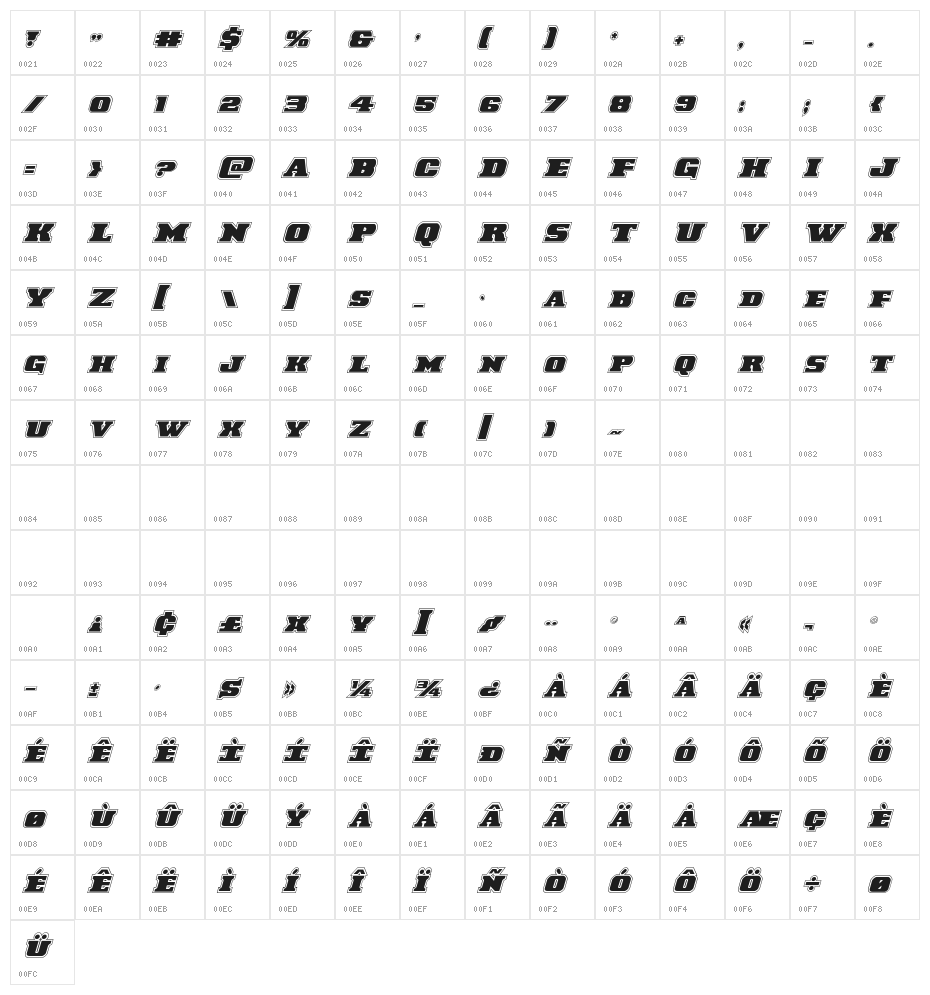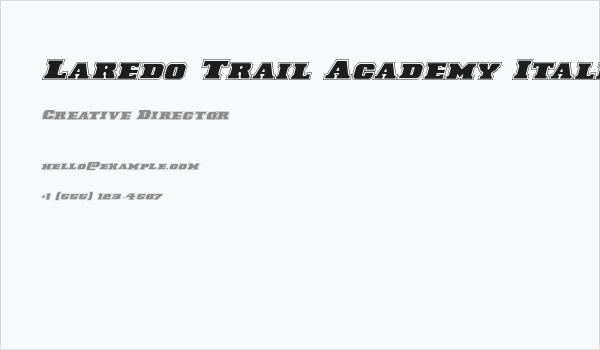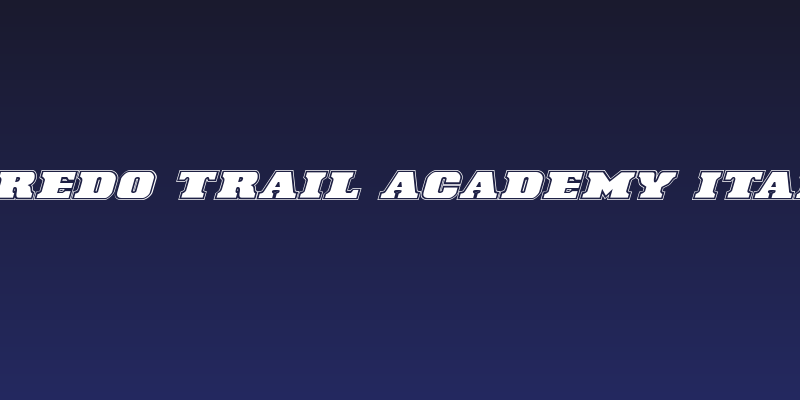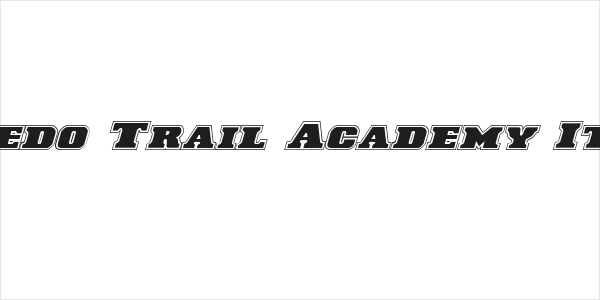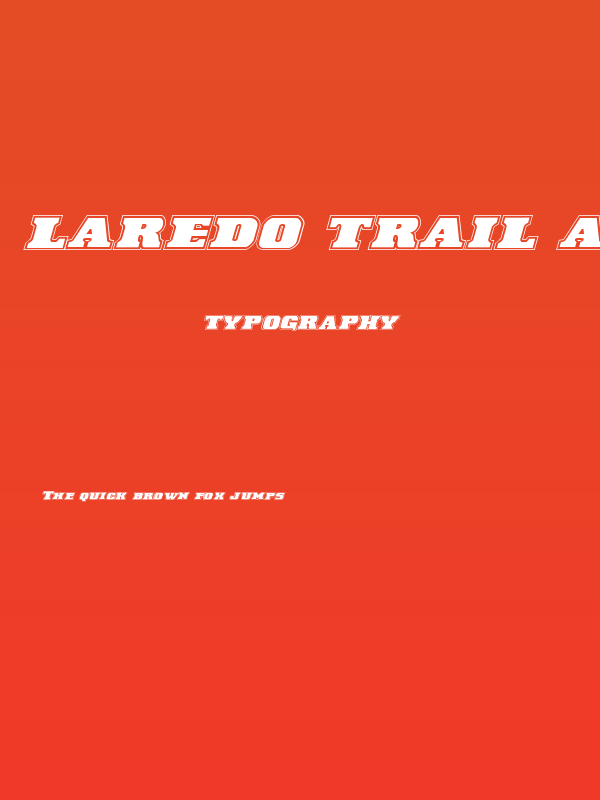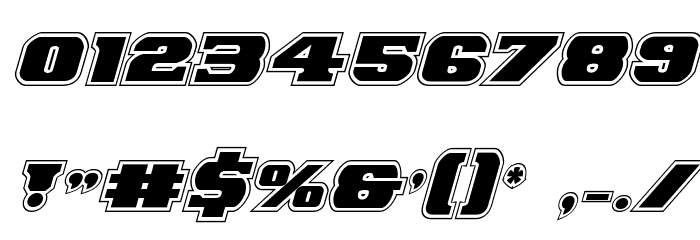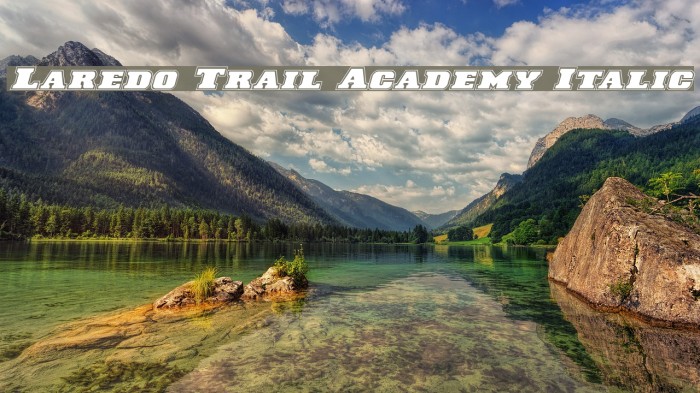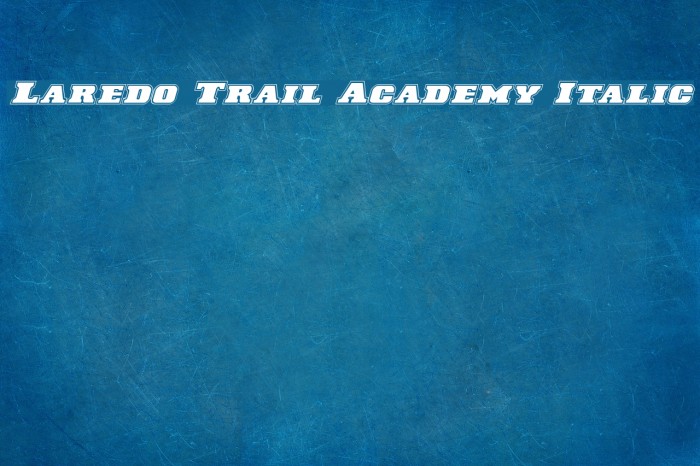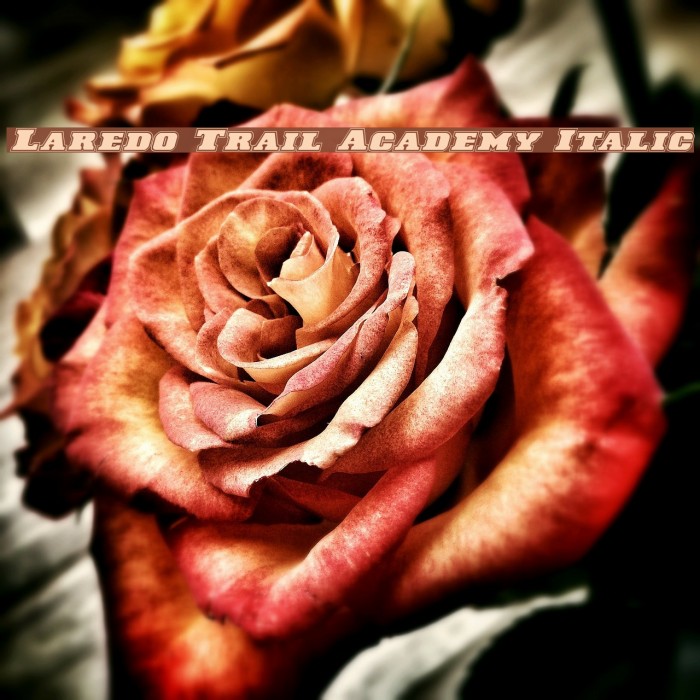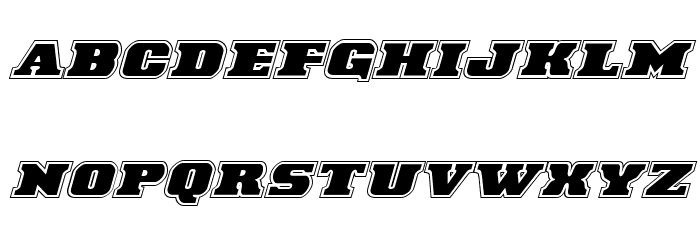
Laredo Trail Academy Italic Font
Laredo Trail Academy Italic Description
This font features bold, blocky characters with a strong, impactful presence. Each letter is outlined, adding a sense of depth and dimension. The italic style gives it a dynamic and forward-moving appearance, making it ideal for attention-grabbing designs. The characters are evenly spaced, ensuring readability while maintaining a cohesive look. The numbers and special characters share the same bold and outlined characteristics, providing consistency across all elements. This font is perfect for projects that require a bold statement, such as sports team logos, posters, or any design that needs to convey strength and confidence.
| Use Case | Logos, Headlines |
| Proposed Projects | Ideal for sports team logos, posters, and designs needing bold statements. |